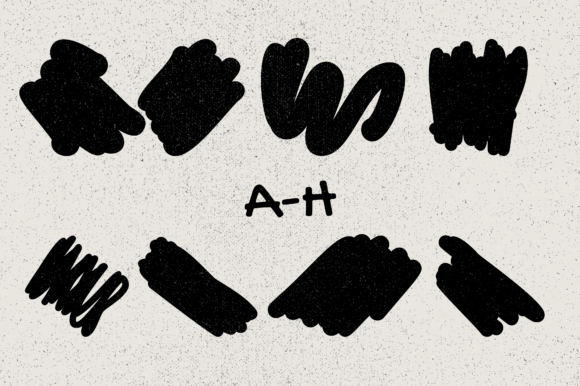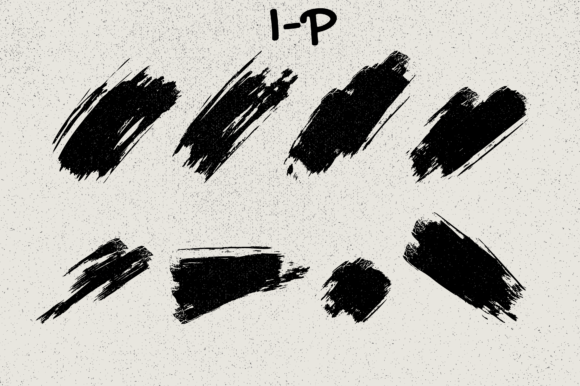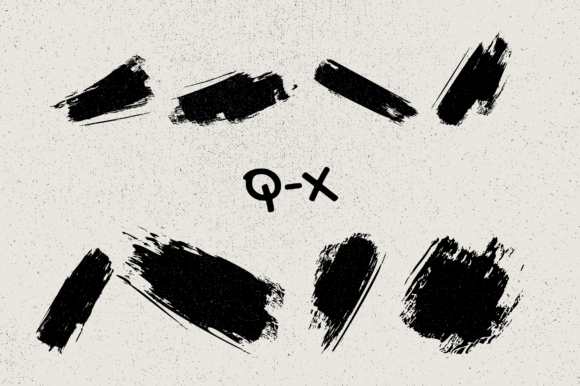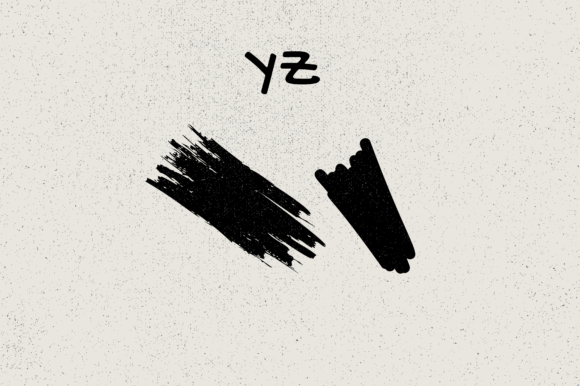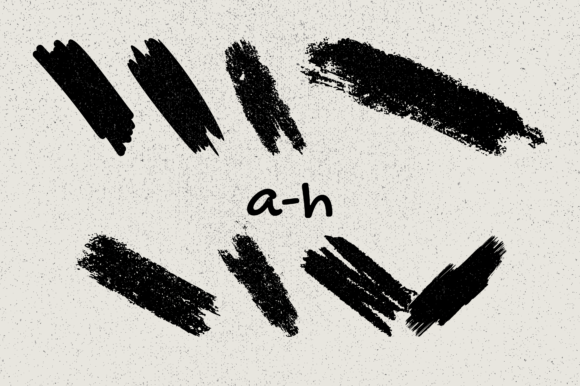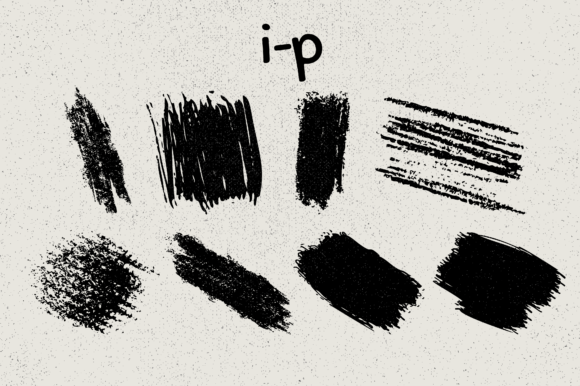
Introducing Brushly 2.0 Font: Unleash Your Creativity with 62 Brush Strokes
Are you a designer, crafter, or DIY enthusiast looking for a unique and creative way to add a personal touch to your projects? Look no further than Brushly 2.0 Font, a charming dingbats typeface that is sure to take your creations to the next level. In this article, we’ll dive into the world of Brushly 2.0 and explore its features, benefits, and uses.
What is Brushly 2.0 Font?
Brushly 2.0 is a carefully crafted dingbats typeface designed to provide users with 62 brush strokes that can be used to add a touch of personality to their designs. The font is perfect for a wide range of projects, from handmade crafts and DIY tutorials to digital designs and marketing materials.
Key Features of Brushly 2.0 Font
- 62 Brush Strokes: With Brushly 2.0, you’ll have access to a vast library of 62 unique brush strokes that can be used to create stunning designs.
- Cute and Playful: The font features a cute and playful design that is sure to add a touch of whimsy to your projects.
- Dingbats Typeface: Brushly 2.0 is a dingbats typeface, making it easy to use and incorporate into your designs.
Benefits of Using Brushly 2.0 Font
So, why should you choose Brushly 2.0 Font for your design needs? Here are just a few benefits of using this amazing font:
- Add a Personal Touch: With Brushly 2.0, you can add a personal touch to your designs and make them stand out from the crowd.
- Save Time: The font’s extensive library of brush strokes means you can create stunning designs in no time.
- Versatile: Brushly 2.0 can be used for a wide range of projects, from digital designs to handmade crafts.
Uses for Brushly 2.0 Font
So, what can you create with Brushly 2.0 Font? The possibilities are endless! Here are a few ideas to get you started:
- Handmade Crafts: Use Brushly 2.0 to add a personal touch to your handmade crafts, such as cards, gift tags, and scrapbook pages.
- Digital Designs: Incorporate the font into your digital designs, such as social media graphics, blog posts, and marketing materials.
- DIY Tutorials: Use Brushly 2.0 to create stunning visuals for your DIY tutorials and blog posts.
- Stationery: Add a touch of personality to your stationery, such as notebooks, journals, and planners.
Tips and Tricks for Using Brushly 2.0 Font
Here are a few tips and tricks to help you get the most out of Brushly 2.0 Font:
- Experiment with Different Colors: Try out different colors and combinations to add depth and interest to your designs.
- Mix and Match: Combine Brushly 2.0 with other fonts and design elements to create unique and eye-catching designs.
- Use for Text and Images: Use the font to add a personal touch to both text and images.
In conclusion, Brushly 2.0 Font is a versatile and creative solution for designers, crafters, and DIY enthusiasts. With its extensive library of 62 brush strokes, cute and playful design, and ease of use, this font is sure to take your creations to the next level. Whether you’re working on handmade crafts, digital designs, or DIY tutorials, Brushly 2.0 is the perfect addition to your design toolkit.